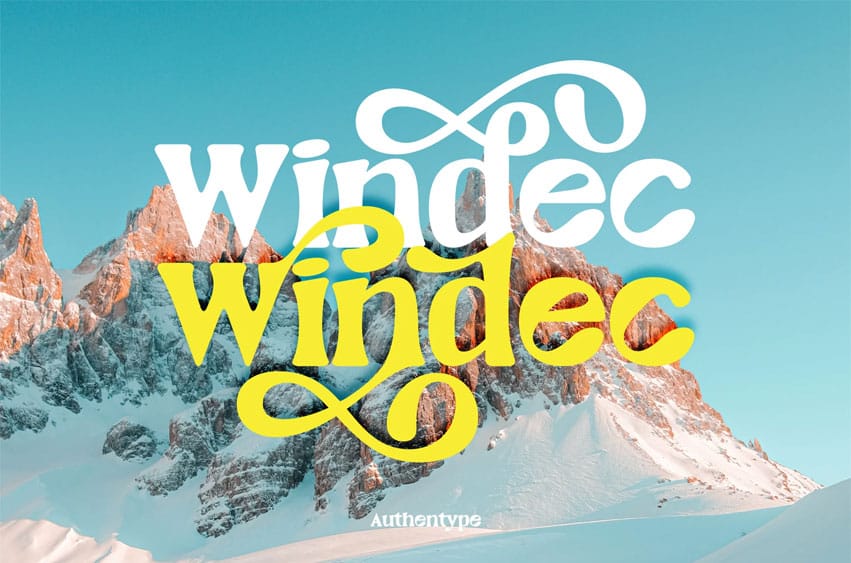
Windec Font Serif Display Font style that takes the shape of flower petals and beautiful curves to form a font. Windec font can be used for products that are friendly to the environment, and love nature.
Windec – Serif Display Font with discretionary ligatures that give each word a different shape. Also contains a swash with an elegant, contrasting, and clean, perfect for logo designs, posters, and various types of promotional media.